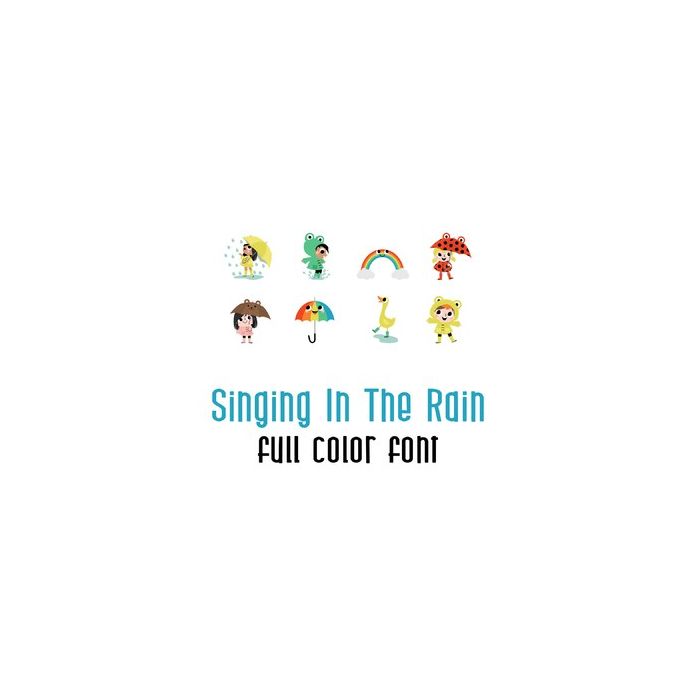
This adorable full color doodlebat font features adorable rain themed imagery from kids and animals splashing, to weather elements. Perfect for cards, crafts, gifts, decor, scrap book pages, planner stickers and more!